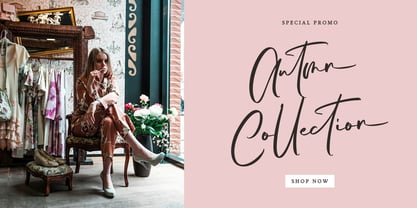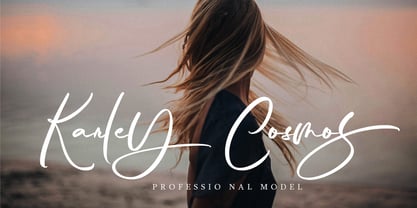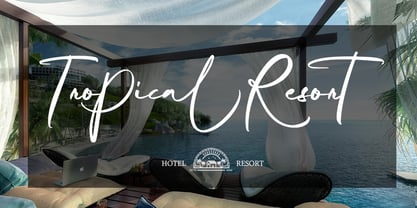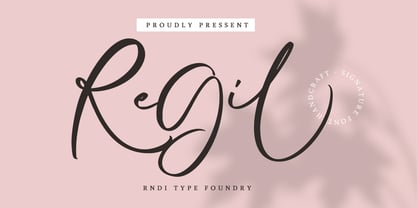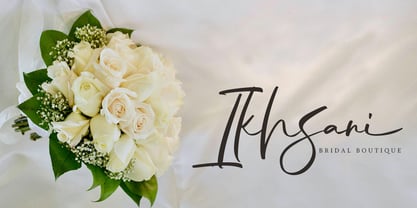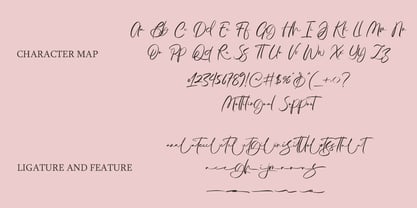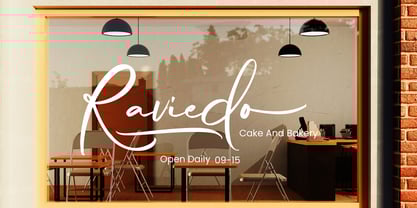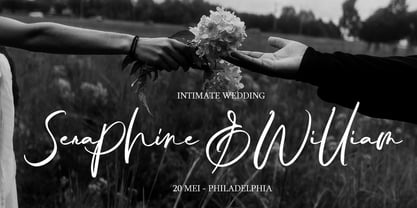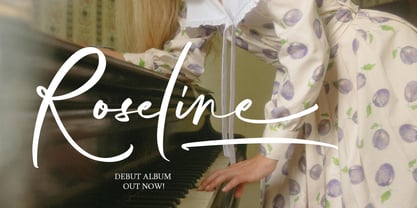
The Regil Font Family was designed by Randi Ilhamsyah and published by RNDI Type Foundry. Regil contains 1 styles.
Regil – Handcrafted Signature Font
Regil is a dynamic brush font with strong, expressive strokes and an authentic handcrafted feel. Its rough yet refined texture adds character to any design, making it ideal for branding, logos, packaging, posters, and more.
energetic brush style Natural hand-drawn texture Suitable for modern and vintage designs Supports multiple languages Regil is designed to bring impact and personality to your creative projects.
Designers: Randi Ilhamsyah
Publisher: RNDI Type Foundry
Foundry: RNDI Type Foundry
Design Owner: RNDI Type Foundry
Regil